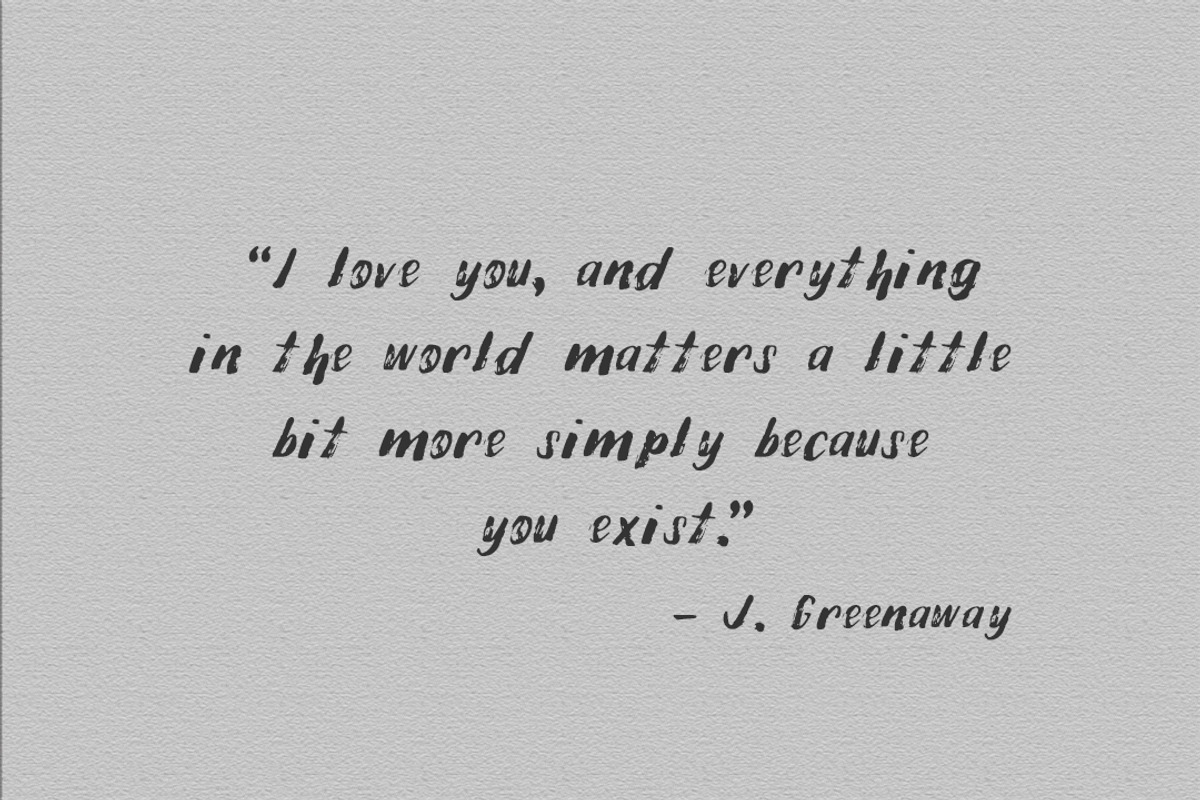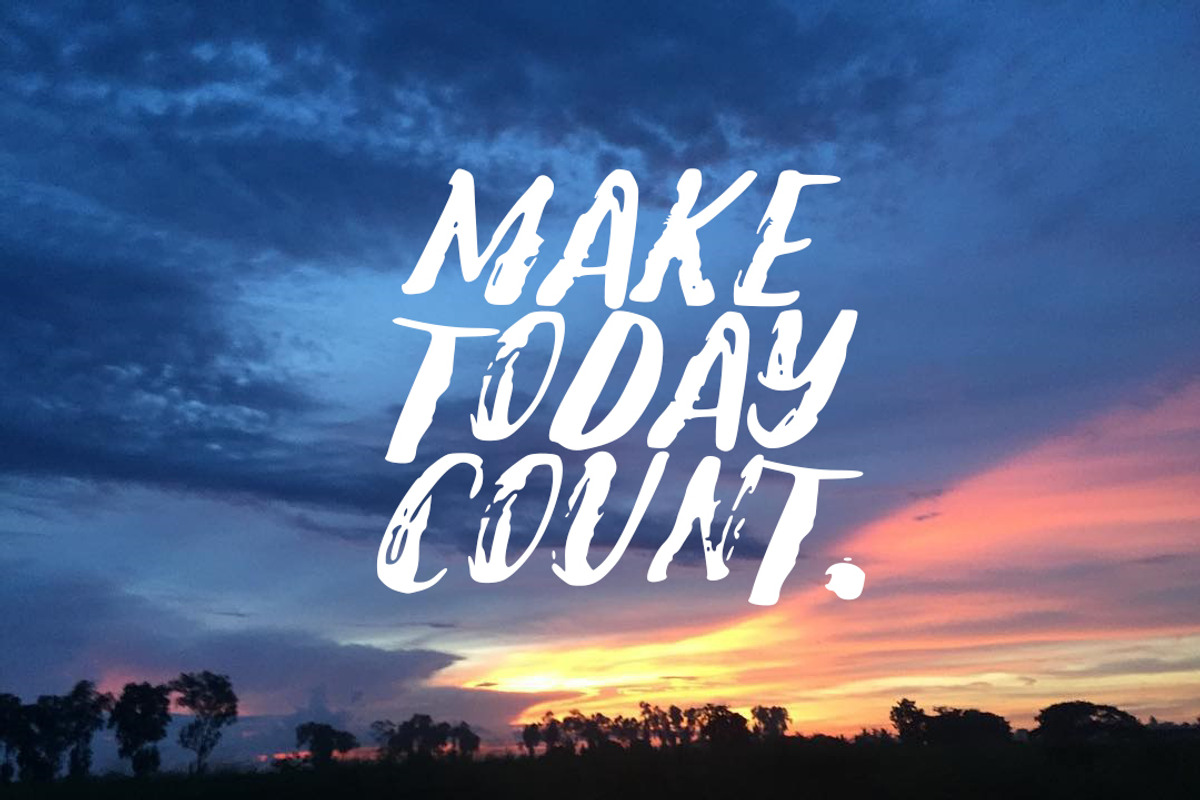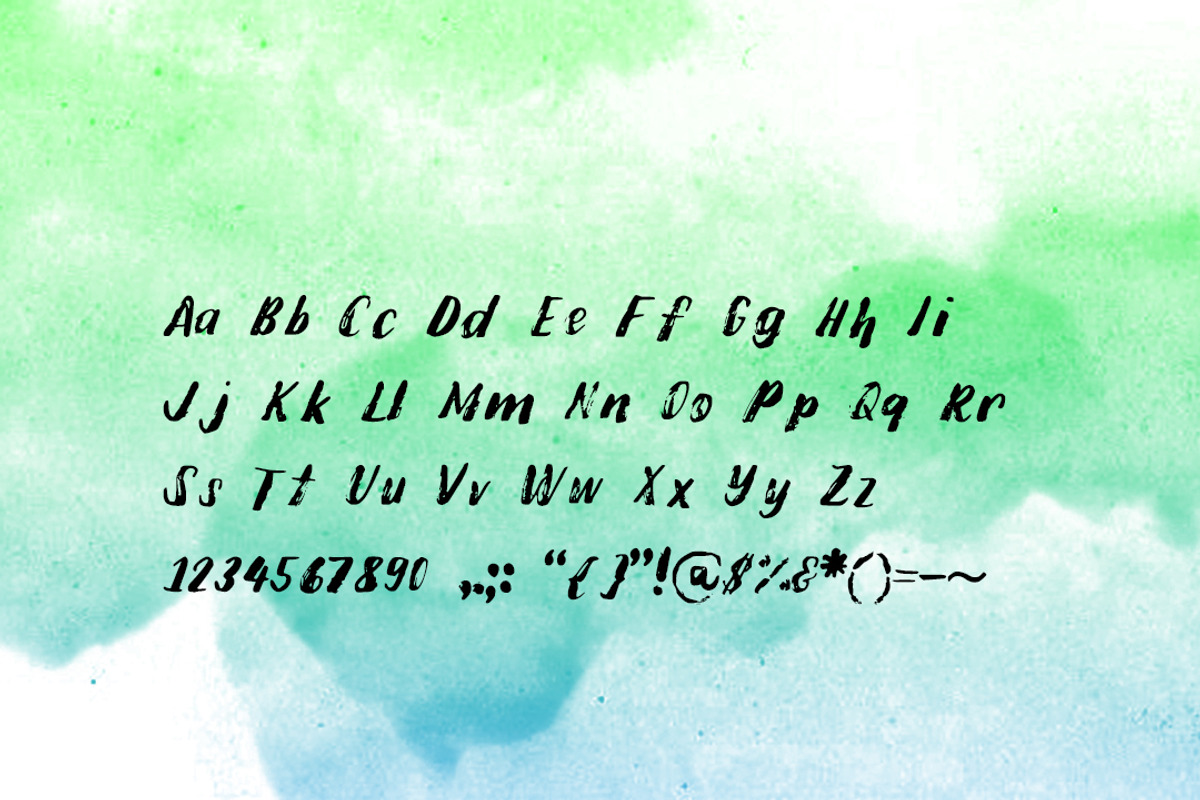
Lovely Lina Handmade Font
Lovely Lina Handmade Font by JuanaLetter is a font selected for branding, posters, packaging, typography.
Why Lovely Lina Handmade Font is worth a look
Lovely Lina Handmade Font by JuanaLetter fits naturally into Branding, posters, packaging, typography.